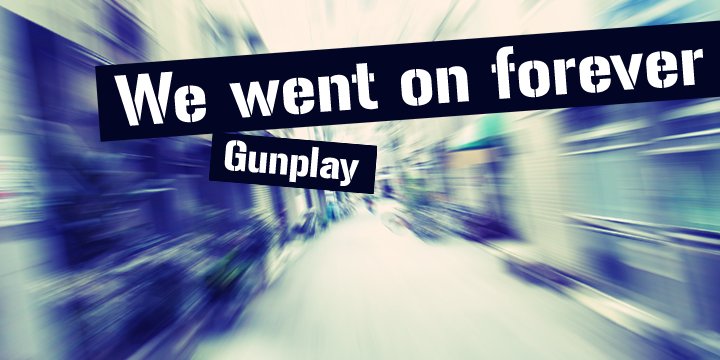
Gunplay
from Larabie
Designed by: Ray Larabie
Designed when: 2000
Gunplay
Gunplay is a hard-nosed stencil font inspired by the poster for the 1972 Steve McQueen/Ali MacGraw film, The Getaway.